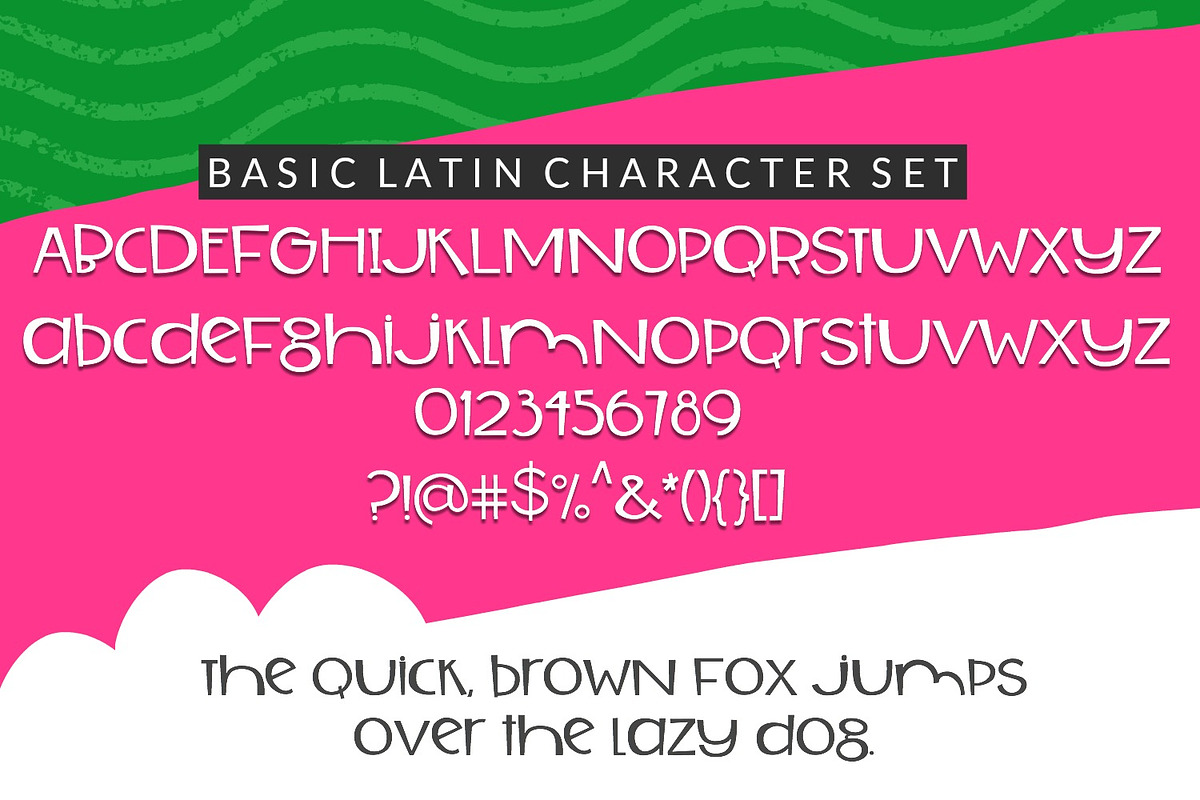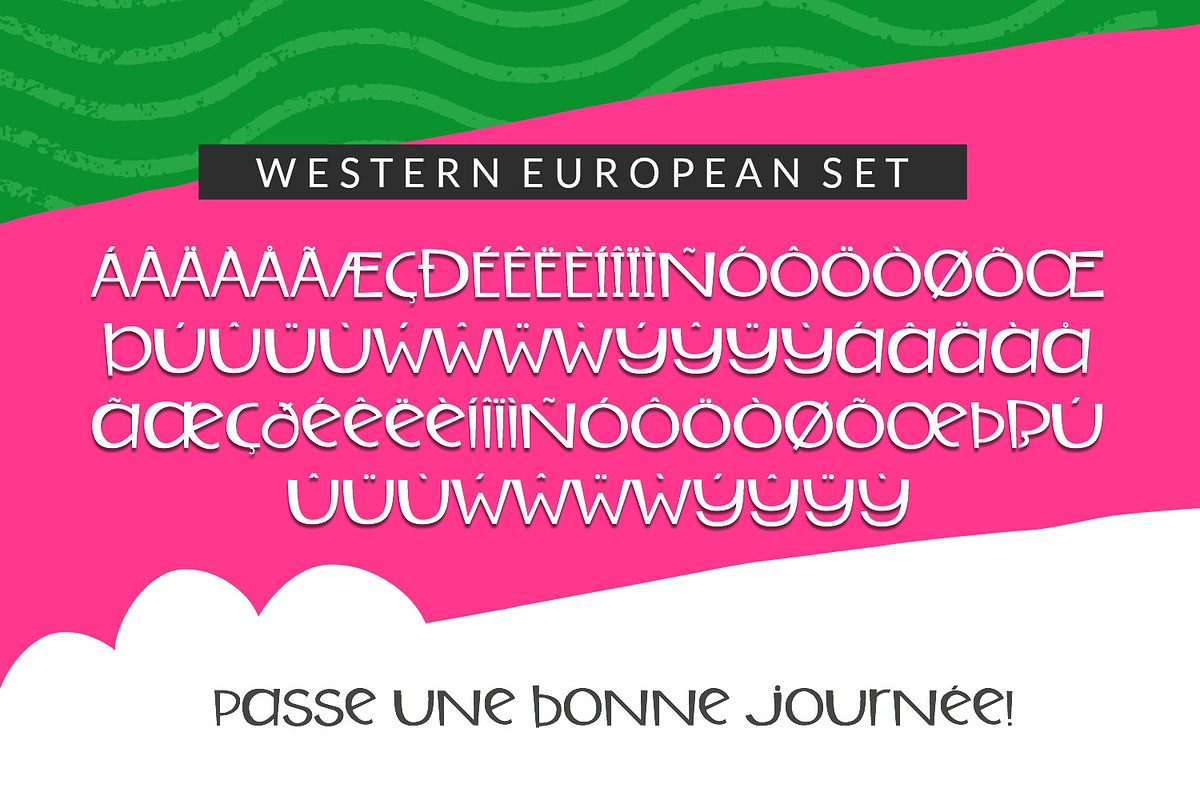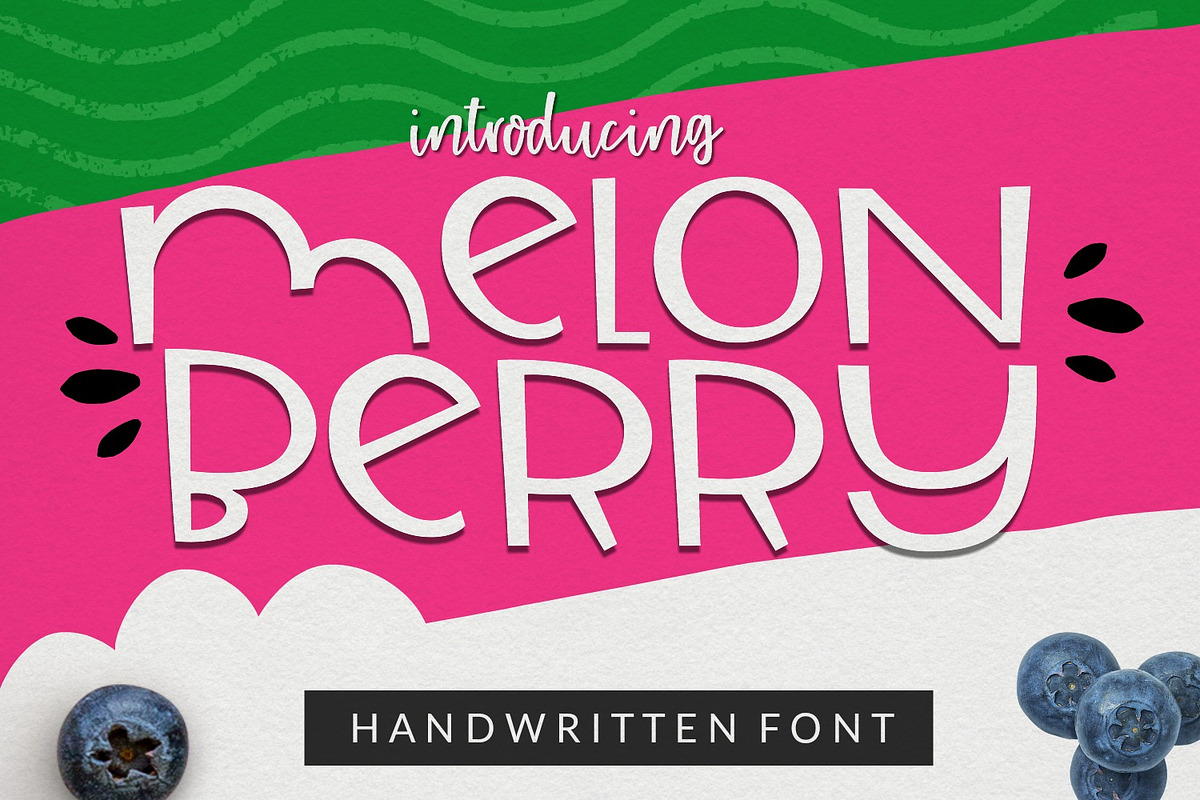
Melonberry Handwritten Font
Melonberry is a sweet & spunky handwritten mixed-case font. It's extra smooth to ensure the best cutting for Cricut & Silhouette crafters.
This font includes the Basic Latin (English) and Western European character sets.
Melonberry Handwritten Font by Sabrina Schleiger Design fits naturally into Branding, posters, packaging, typography.